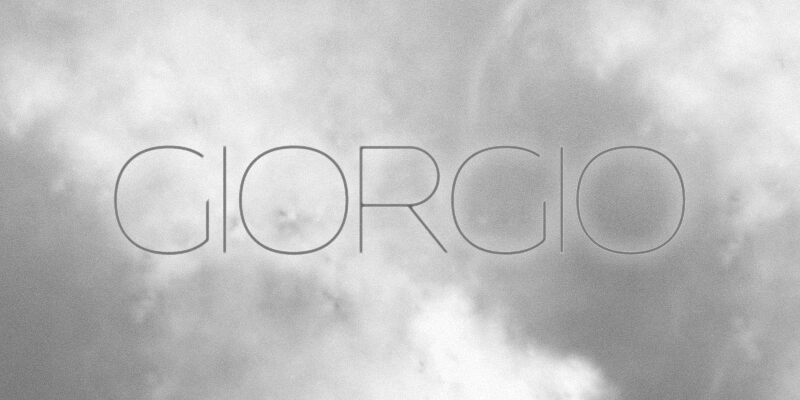
Giorgio Thin
Giorgio Thin is a free light geometric sans serif with extremely fine strokes and a clean, architectural silhouette. Broad circular forms sit beside narrow uprights, creating pronounced shifts in letter width and giving the text an airy horizontal reach. The drawing is spare and precise.
A fashion label or contemporary interiors studio could use its refined geometry for branding, packaging, and lookbook titles, especially when a restrained, upscale voice suits the subject. Its combination of generous proportions and hairline construction also fits gallery posters and cultural event graphics, linking these uses through an elegant, understated approach to display lettering.